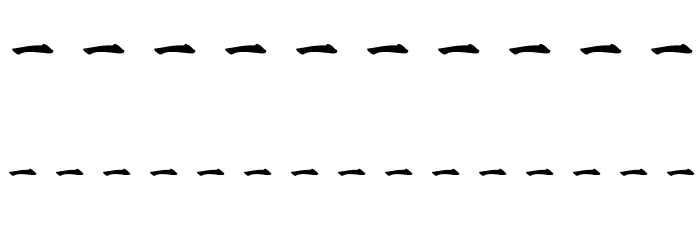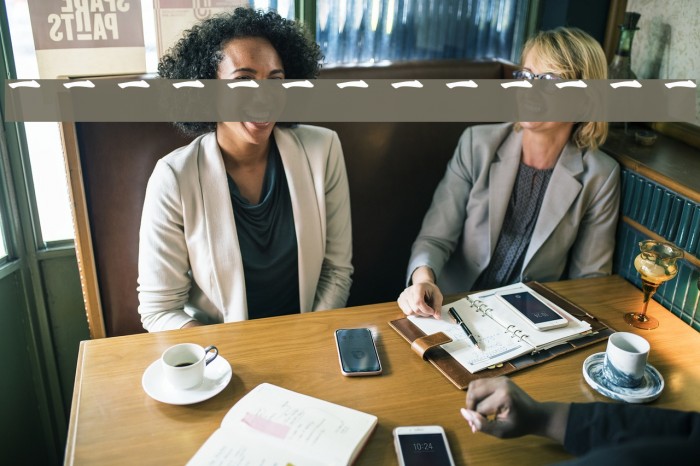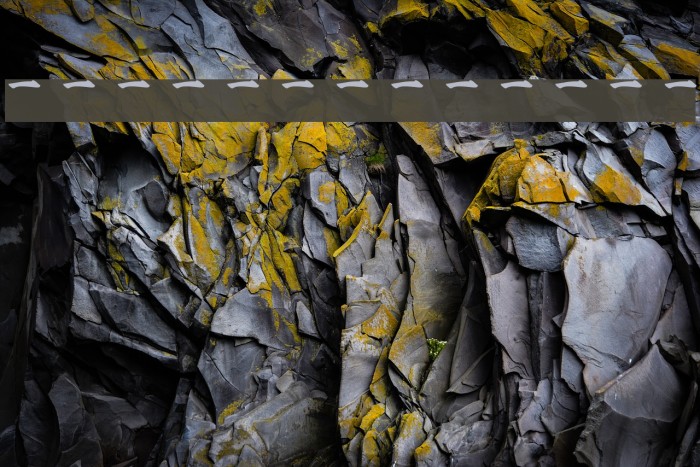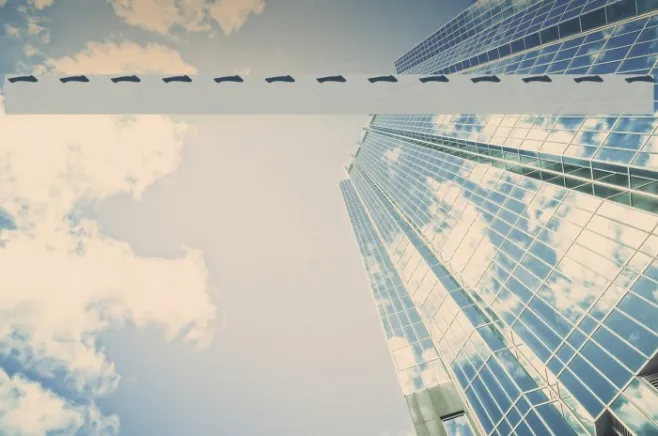
Kanji L Font
This is not a valid font. The image displays a series of dashes or lines that do not form recognizable characters or letters. It lacks the necessary elements to be considered a font, such as distinct letterforms or symbols that can be used for writing or design purposes.
The image does not depict a valid font.